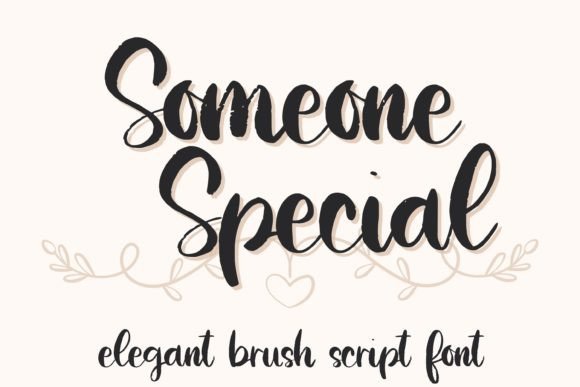
Looking for a unique and elegant script font for your next project? Look no further than Someone Special Font, the perfect choice for anyone looking to add a touch of personal flair to their designs. This beautiful brush script font was created by designingdigitals, and is perfect for a wide range of applications, from wedding and bridal shower invitations to greeting cards, t-shirt designs, stickers, social media posts, and more.
As one of our sweet handwriting fonts, Someone Special is the ideal choice for anyone looking to add a personal touch to their designs. Whether you're a professional designer working in Cricut, illustrator, or procreate, or simply looking for a fun and easy way to spice up your social media posts or crafts, this font is sure to impress.
With its delicate curves and elegant brush strokes, Someone Special is the perfect choice for anyone looking to create a romantic or whimsical feel in their designs. And thanks to its open-type font support, it's easy to use and customize, making it a great choice for both beginners and experienced designers alike.